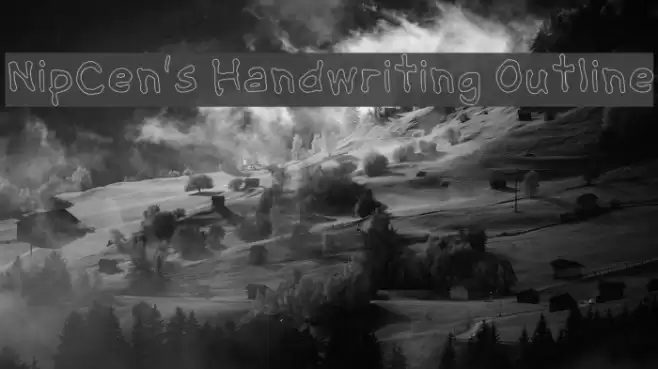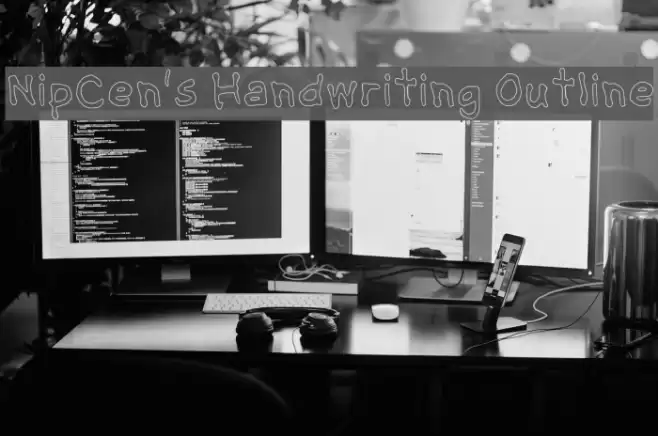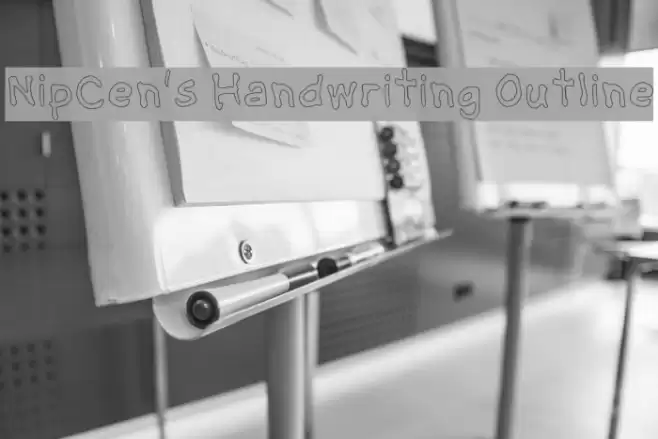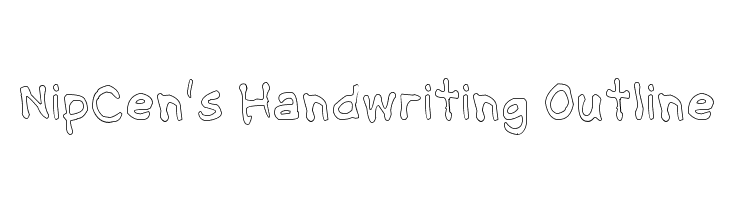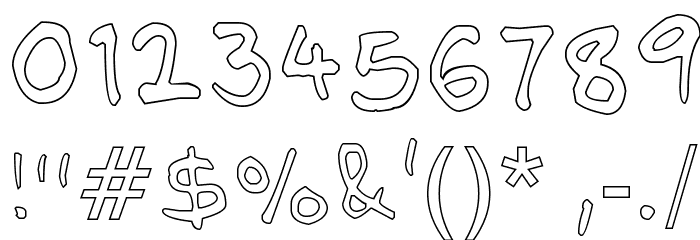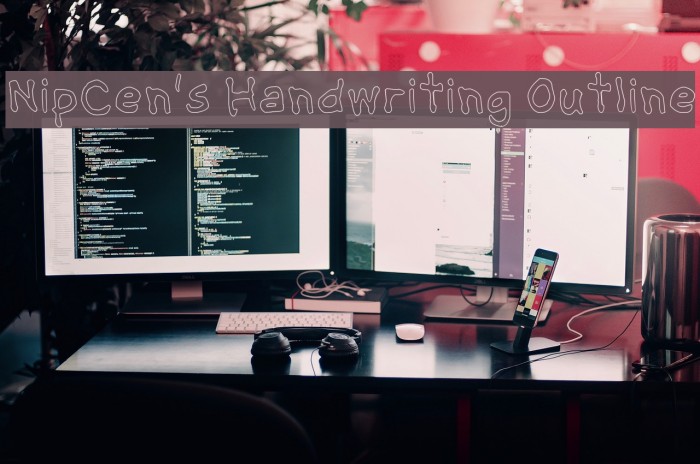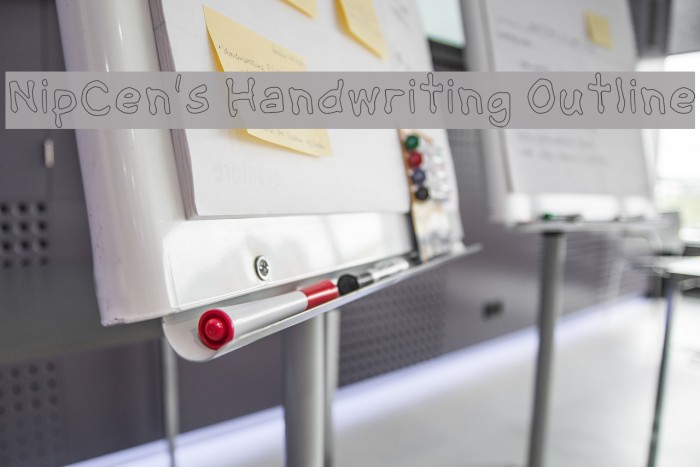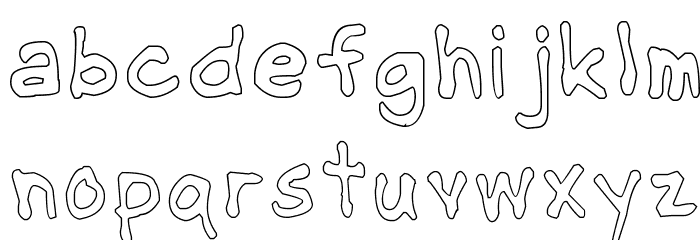
NipCen's Handwriting Outline Font
NipCen's Handwriting Outline Description
This font features a playful, handwritten style with an outline effect, giving it a casual and informal appearance. The characters are slightly irregular, adding to the hand-drawn aesthetic. Each letter is distinct, with rounded edges and a consistent stroke width that maintains the outline look. The font includes both uppercase and lowercase letters, numerals, and a variety of special characters, making it versatile for different design needs. Its unique style is eye-catching and suitable for creative projects.
A playful, outlined handwritten font with a casual and informal style from Uncategorized fonts.
- Proposed Projects: Ideal for children's book covers, playful posters, greeting cards, and creative branding projects.